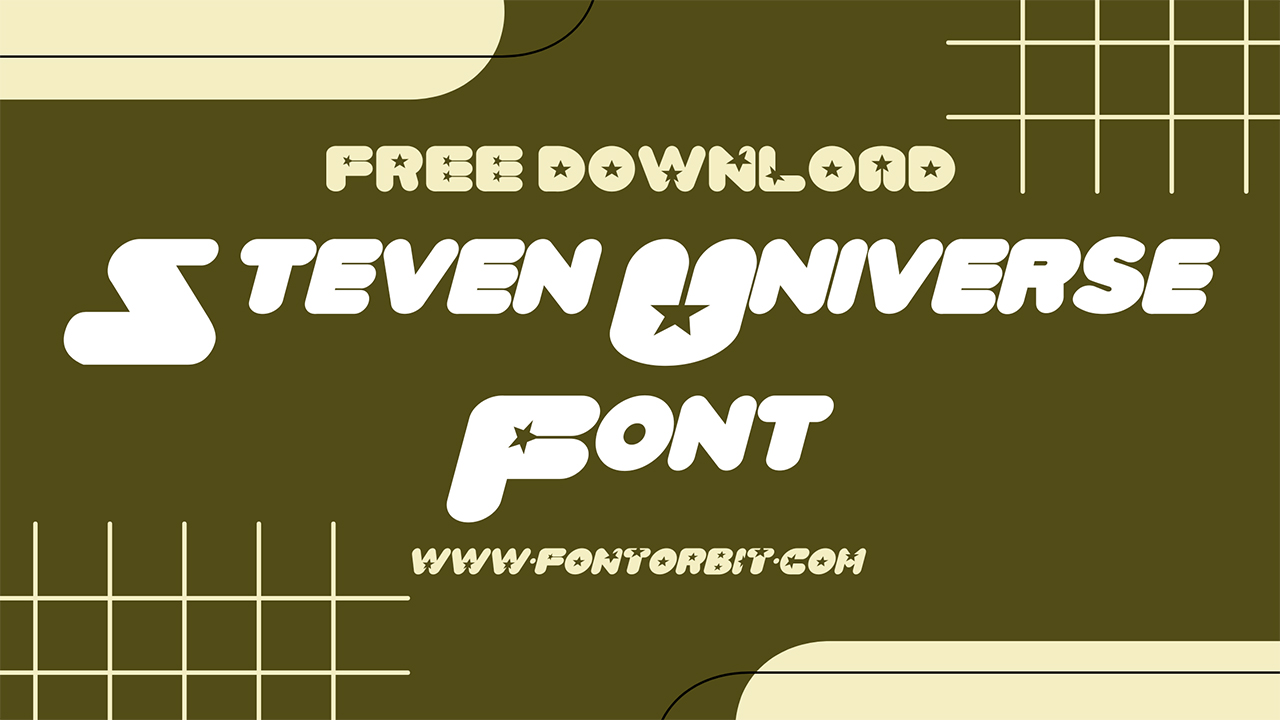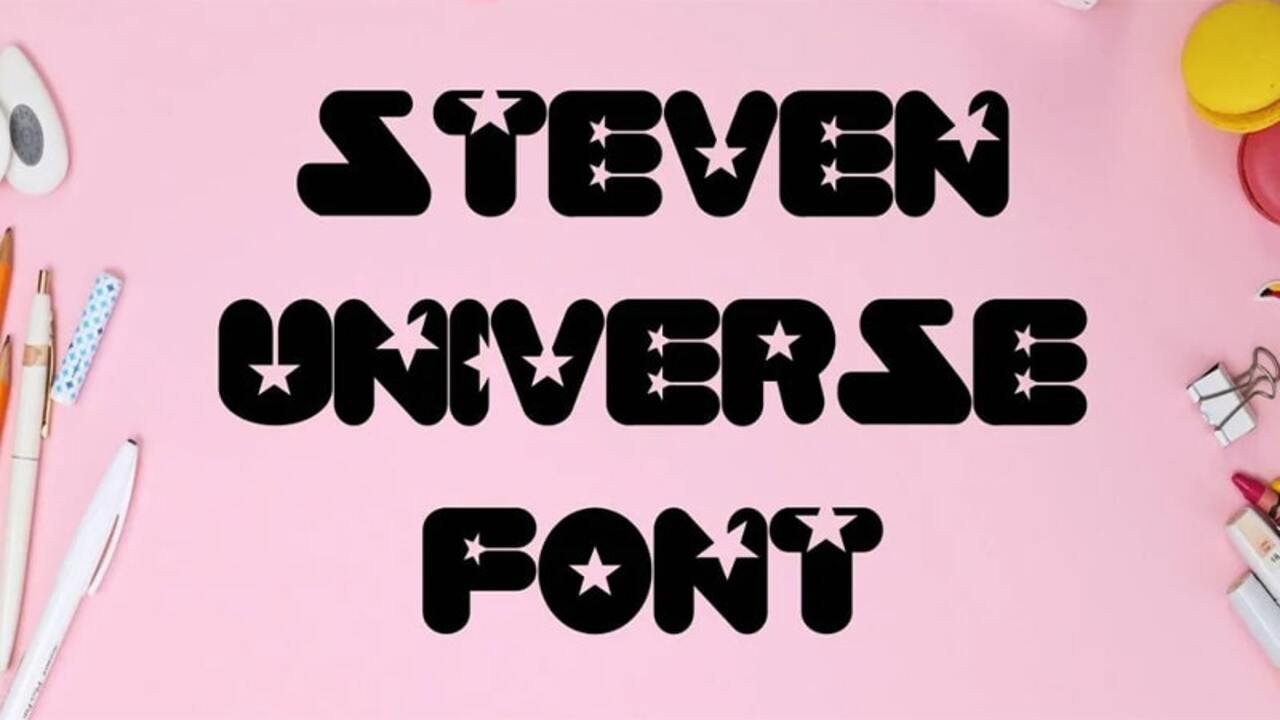
The Steven Universe Font is a charming typeface inspired by the iconic animated series “Steven Universe.” The Steven Universe Font is a playful, display typeface inspired by the show’s logo.
The logo font matches the CrystalUniverse font designed by MaxiGamer. It features vibrant and whimsical letterforms that capture the essence of the series. The font brings the magical world of the Crystal Gems to your designs. This font pays homage to the show’s distinctive logo and branding, capturing the playful and whimsical essence of the beloved series.
Type Of Steven Universe Font (Font Family)
The Steven Universe Font (Crystal Universe) is designed to replicate the unique typography of the show’s logo and promotional materials.
It belongs to the category of display typefaces, known for their eye-catching and distinctive styles. This font is particularly notable for its vibrant and stylized letterforms that mirror the colorful and fantastical nature of the series. The font family includes:
The Steven Universe Font is perfect for various creative projects, especially those that celebrate or are inspired by the show. Its playful and nostalgic style makes it ideal for:
The Steven Universe Font Found In Use
The Steven Universe Font is frequently used in fan creations, merchandise, and promotional materials related to the series. It captures the distinctive look of the show’s logo, making it a favorite among fans and designers who want to evoke the magic of the Crystal Gems.
The Steven Universe Font is a delightful typeface that brings a touch of the magical world of Crystal Gems to any design. Ideal for fan art, merchandise, logos, and promotional materials, this font is perfect for adding a whimsical, nostalgic flair to your projects. Whether you’re creating fan content or themed designs, the Steven Universe Font is a great choice for capturing the charm and excitement of the beloved series.
1.What Are The Font Pairings That Complement The Steven Universe Font?
Pair the Steven Universe Font with clean, modern sans-serifs like Helvetica or Futura for contrast. For a playful touch, try combining it with whimsical scripts like Lobster or Pacifico.
2.How Can You Identify The Steven Universe Font From Other Similar Fonts?
The Steven Universe Font is recognizable by its vibrant, playful letterforms and distinct blocky, whimsical style, often featuring rounded edges and bright colors that reflect the show’s magical and retro aesthetic.
3.What Are The Different Weights Available In The Steven Universe Font?
The Steven Universe Font typically includes weights such as Regular, Bold, and Italic. These variations allow for diverse usage while maintaining the font’s unique and recognizable style.
4.What Are The Unique Characters And Symbols Available In The Steven Universe Font?
The Steven Universe Font includes unique characters and symbols such as star icons, gem shapes, and whimsical letterforms that align with the show’s magical theme and playful design elements.
5.What Is The Font Size Used In The Steven Universe Logo?
The font size in the Steven Universe logo varies depending on the context, but it is generally large and bold to ensure visibility and impact, often ranging from 50 to 150 points in promotional materials.
6.Who Created The Steven Universe Font?
The Steven Universe Font was created by MaxiGamer, a designer known for crafting typefaces inspired by popular culture and retro themes, including fonts that replicate the iconic style of the Steven Universe series.